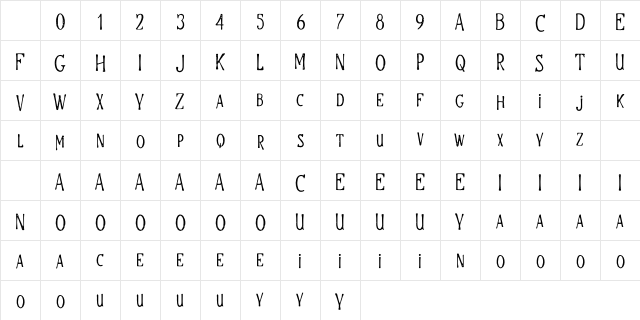
Tombstone is a composed and adaptable typeface that performs quietly and consistently across a wide range of design contexts.
Pro Tip: Use Tombstone in both headline and body roles to test its range before committing to a single application.